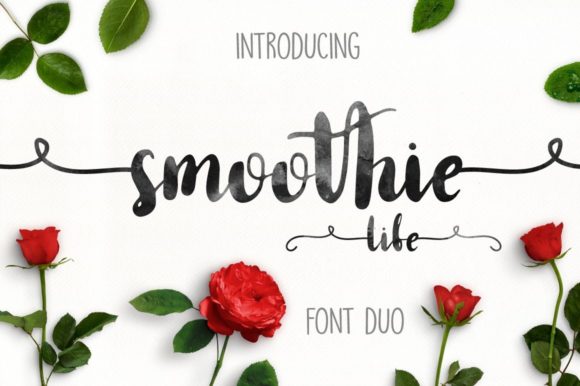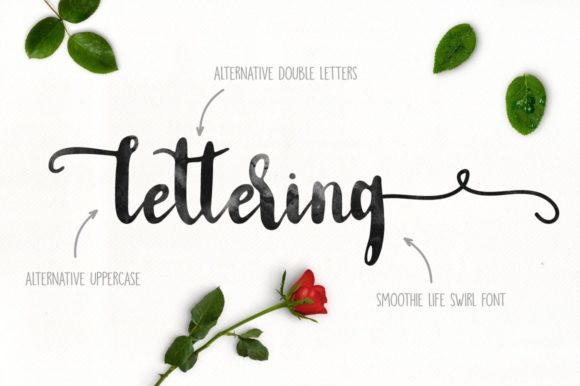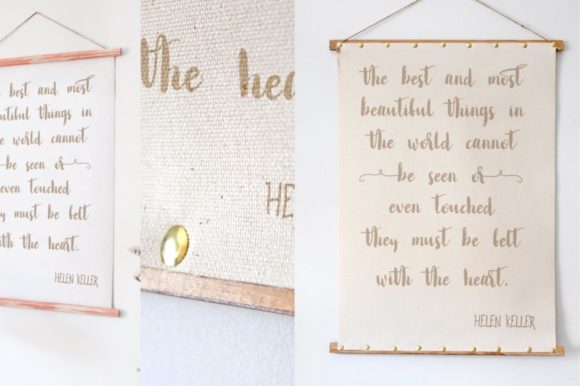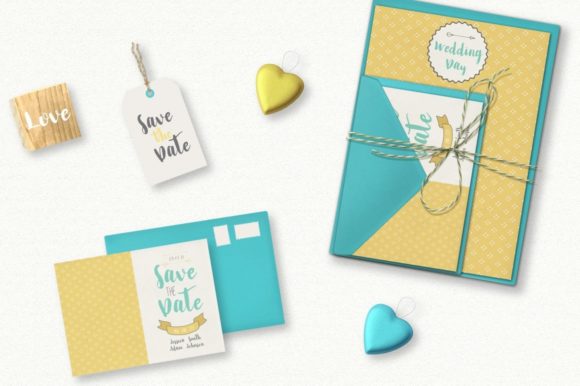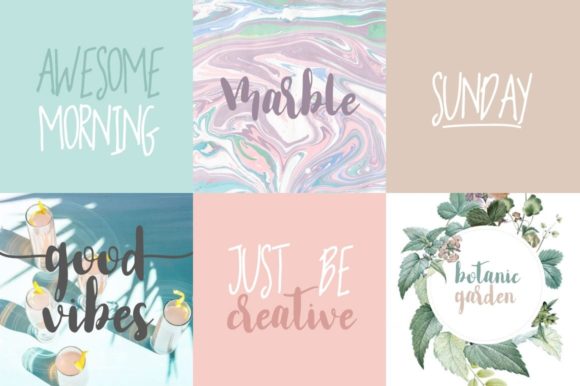
Be with Smoothie Life Font
About Be with Smoothie Life Font
Be with Smoothie Life
This font is handwritten and contains alternative double letters, alternative uppercase and swirl font.
You need to make t-shirt design or invitation? Maybe you want to make poster, send a postcard to a friend or a pillow? Or if you have a small shop or a cafe? Use this font for your design.